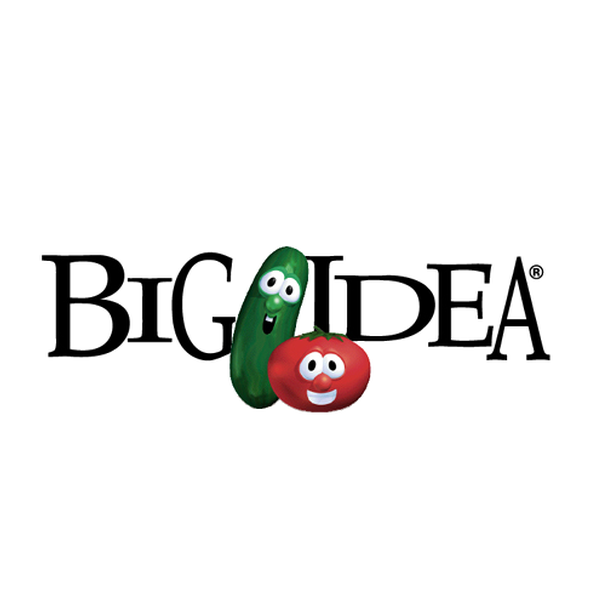
Big Idea Font
AnimationBig Idea Entertainment is an American animation studio known for producing the popular children's series "VeggieTales" which features anthropomorphic vegetables in stories conveying moral lessons.
It is likely that the Big Idea logo was created using Palatino, a classic serif font designed by Hermann Zapf during the Renaissance era. Additional information on Palatino can be found here.